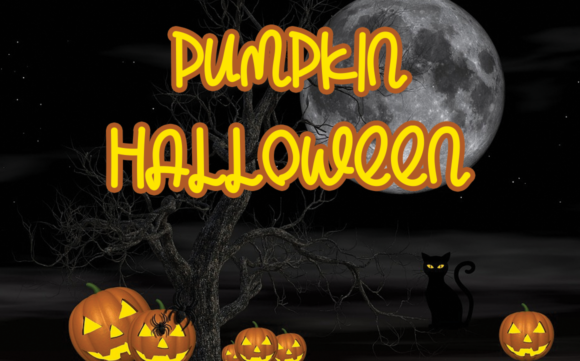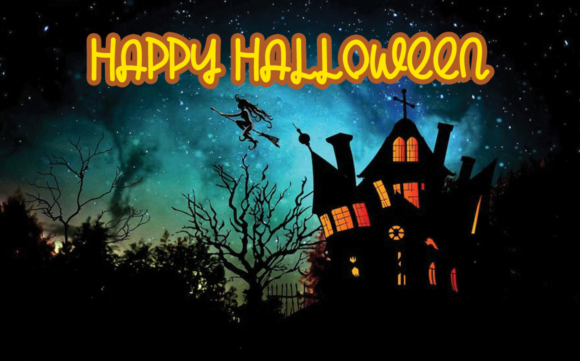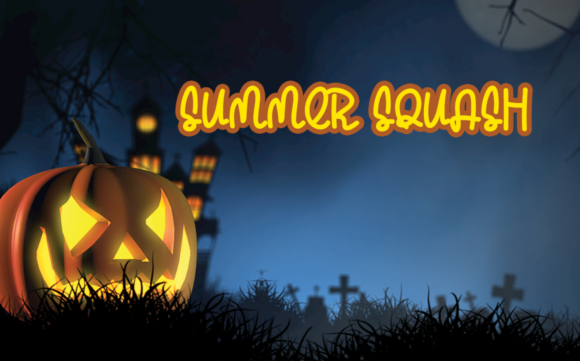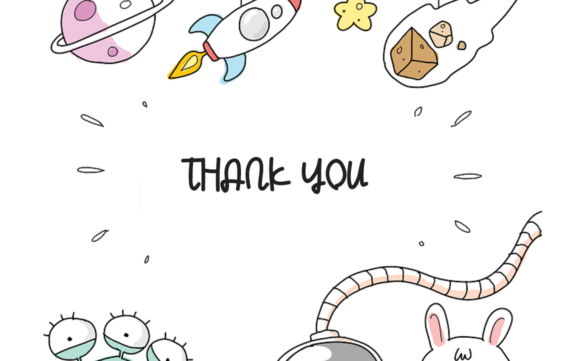
Halloween Day Font
About Halloween Day Font
Halloween Day is a simple, adaptable and friendly handwritten font. Whether you’re looking for fonts for Instagram or calligraphy scripts for DIY projects, this font will turn any creative idea into a true piece of art!